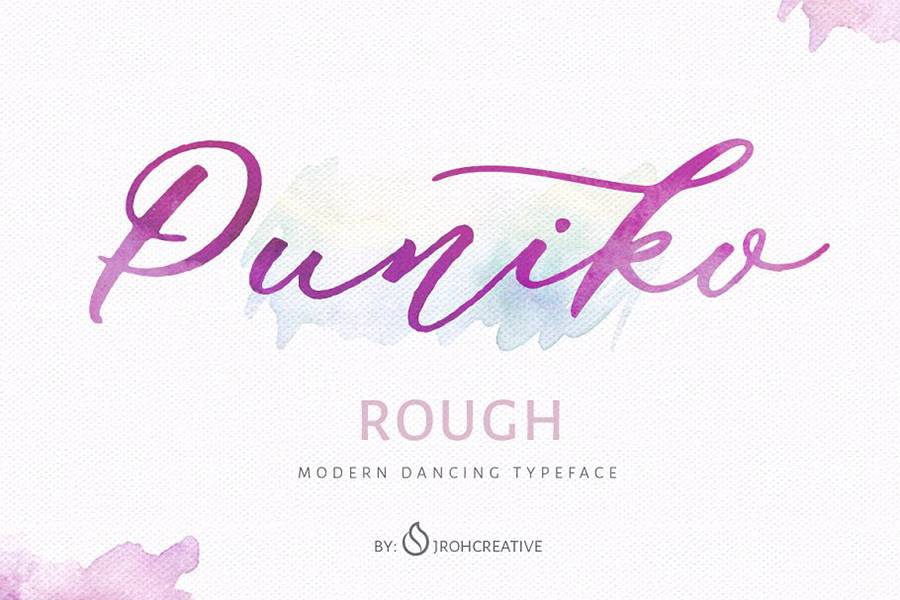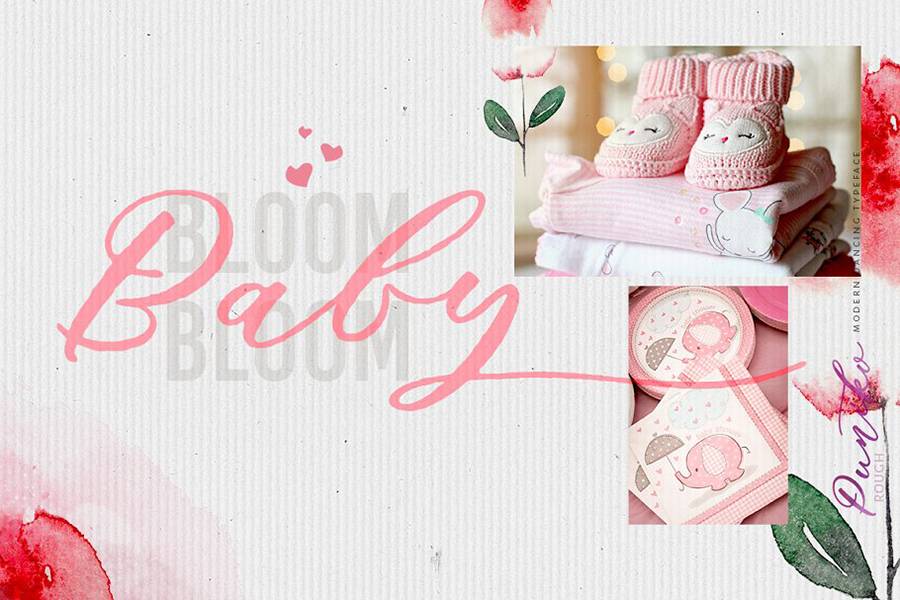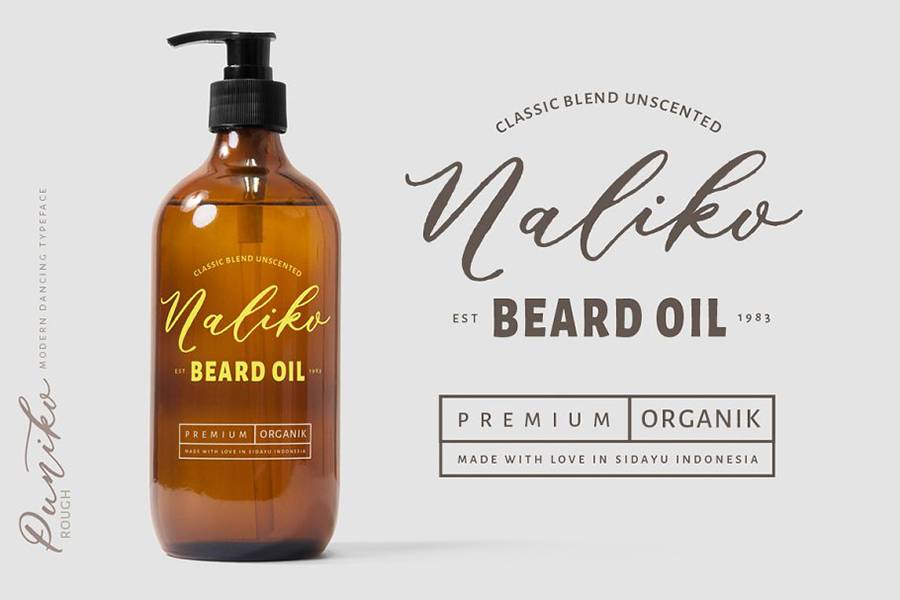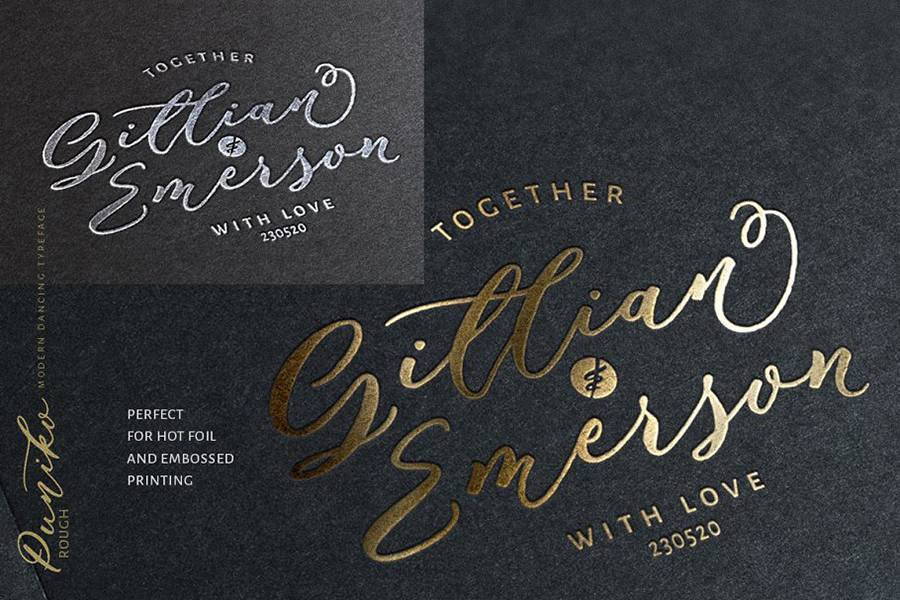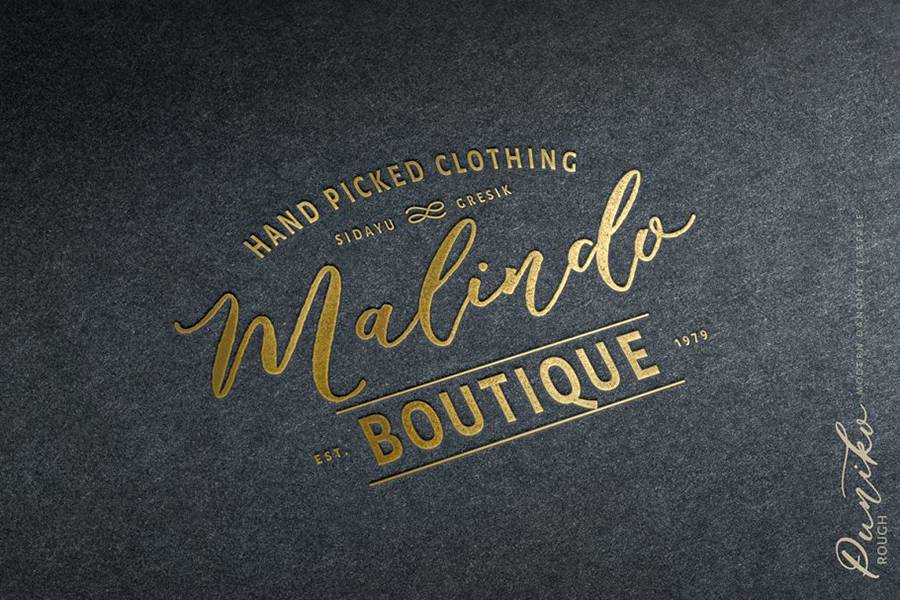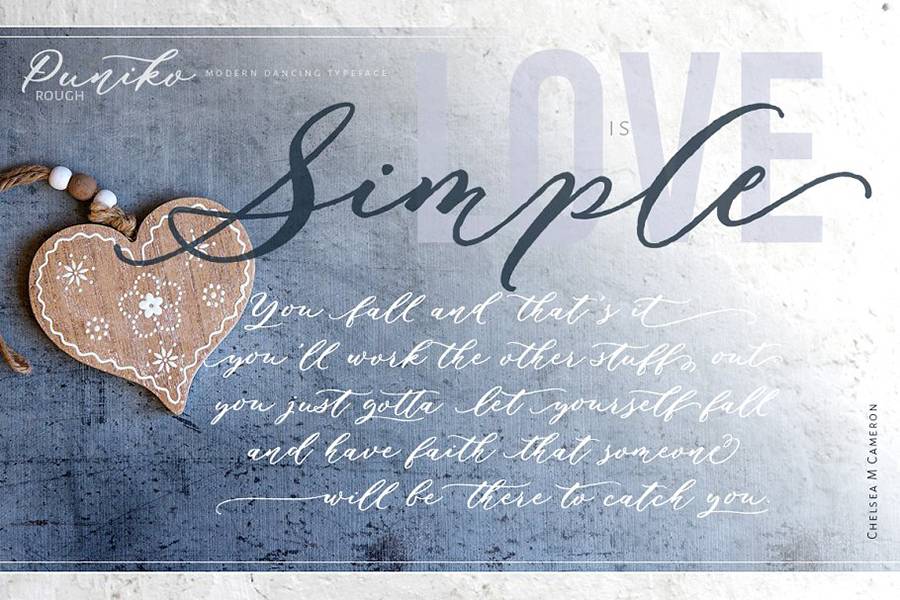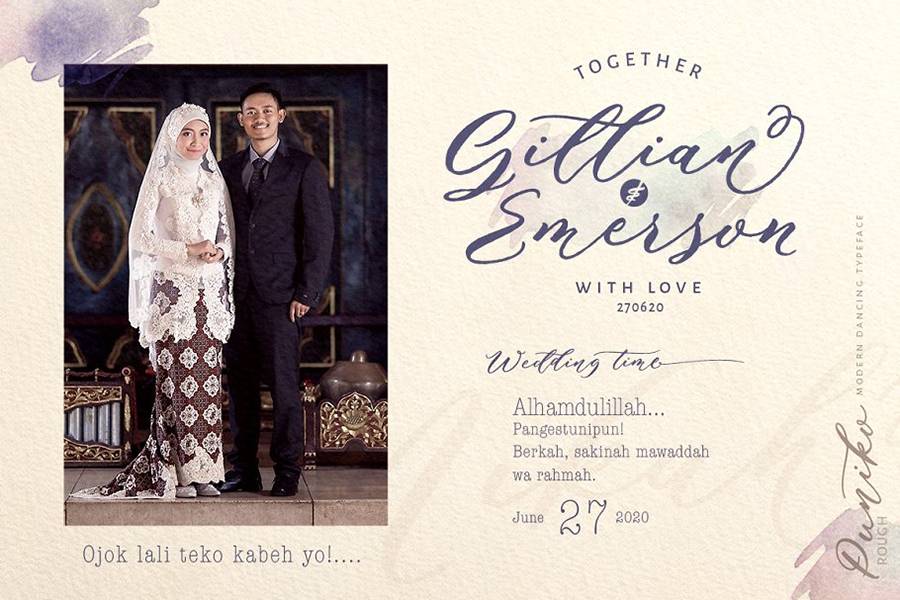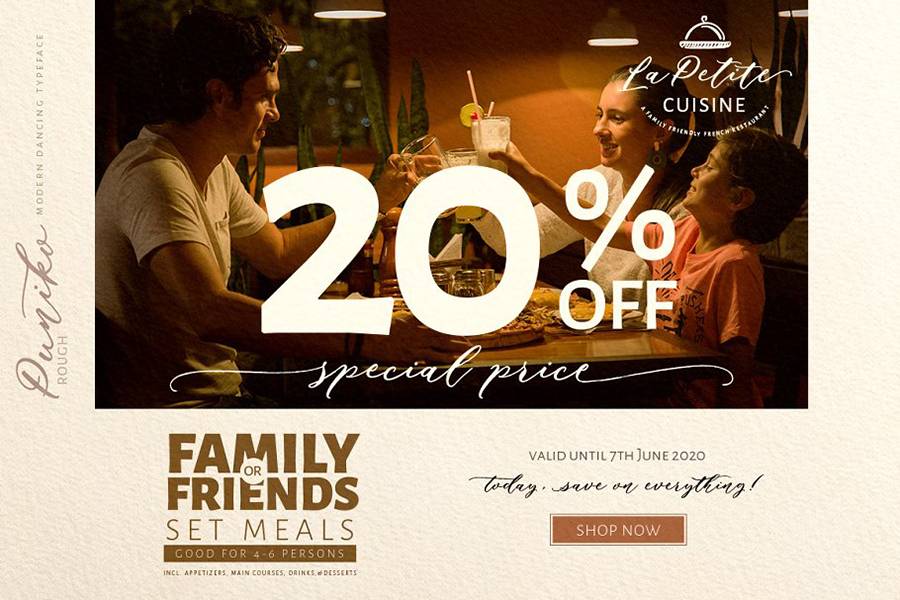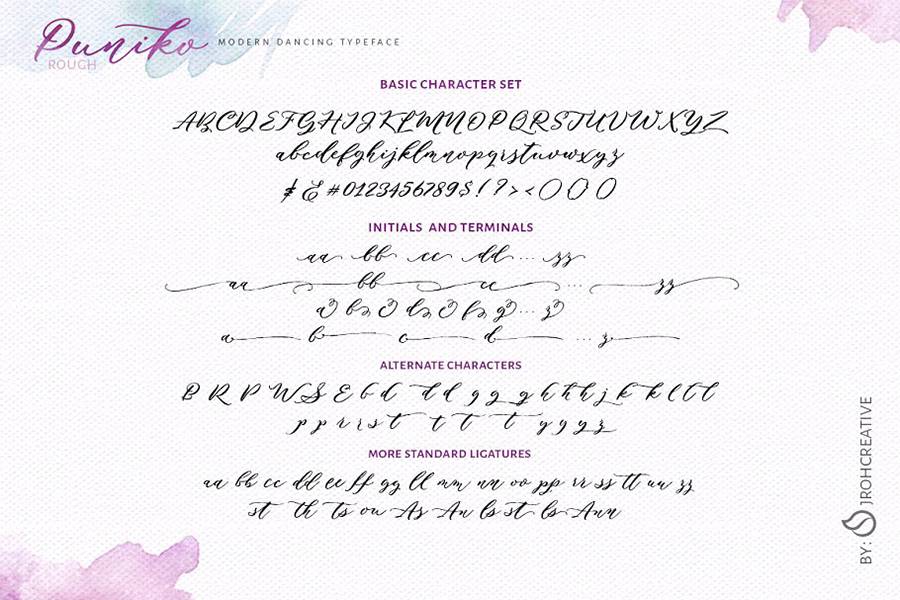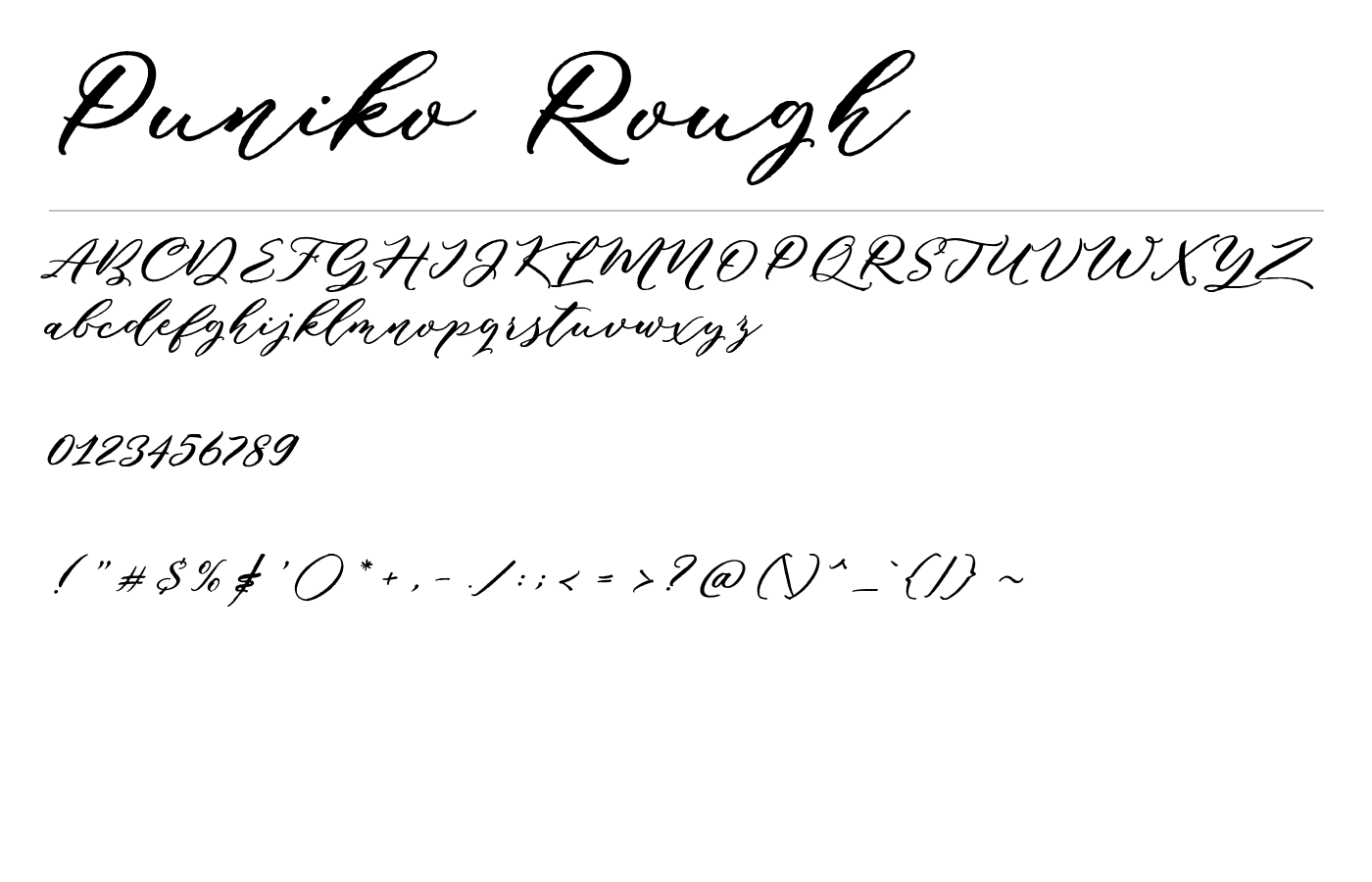
Puniko Rough Script Demo
Puniko Rough Script Demo is created by the hand-lettered process to get a natural feel in every glyphs combination. we try to create this font with a perfect weight so it would be perfect for all types of printing techniques, embroidery, laser-cut, gold foil, etc. Suitable for weddings, invitations, greeting cards, quotes, posters, branding, name card, stationary, design title, blog header, art quote, typography art, modern envelope lettering or book design, happening style like the hand-drawn design or watercolor design theme, craft design, any DIY project, book title, wedding font, pop vintage design, or any purpose to make our art/design project look pretty and trendy.